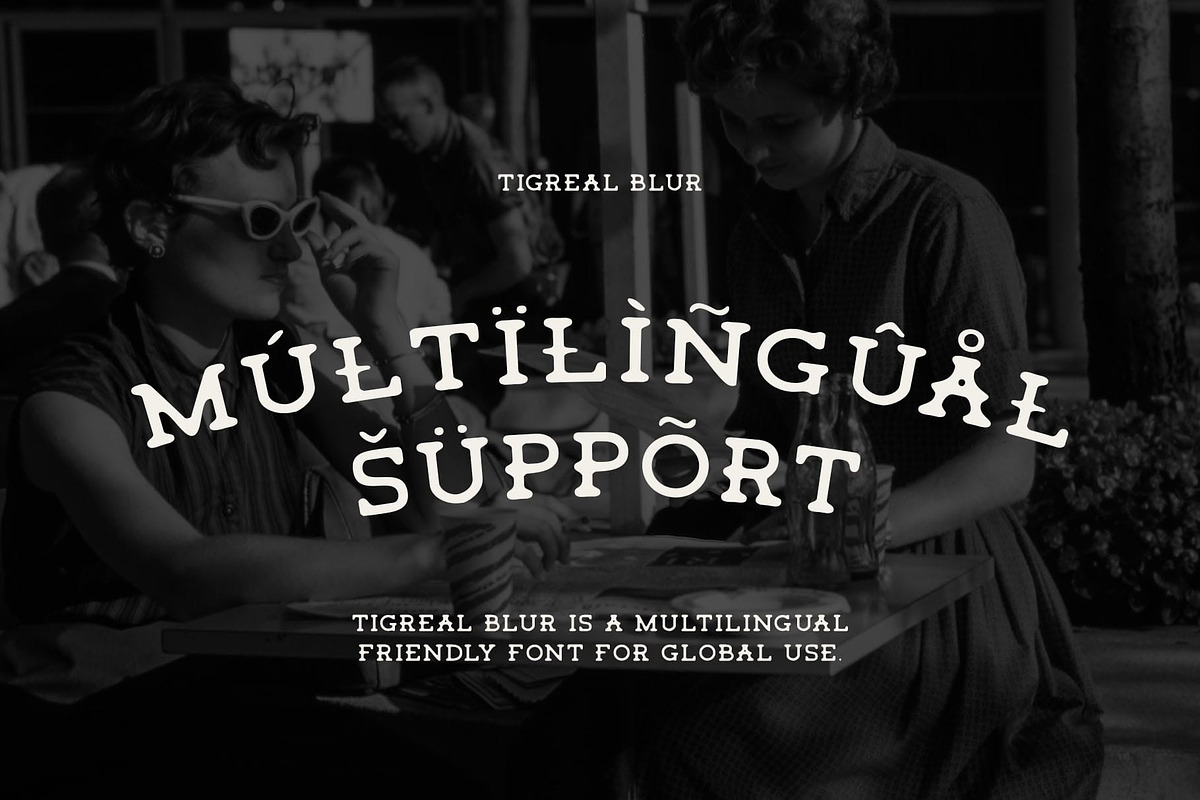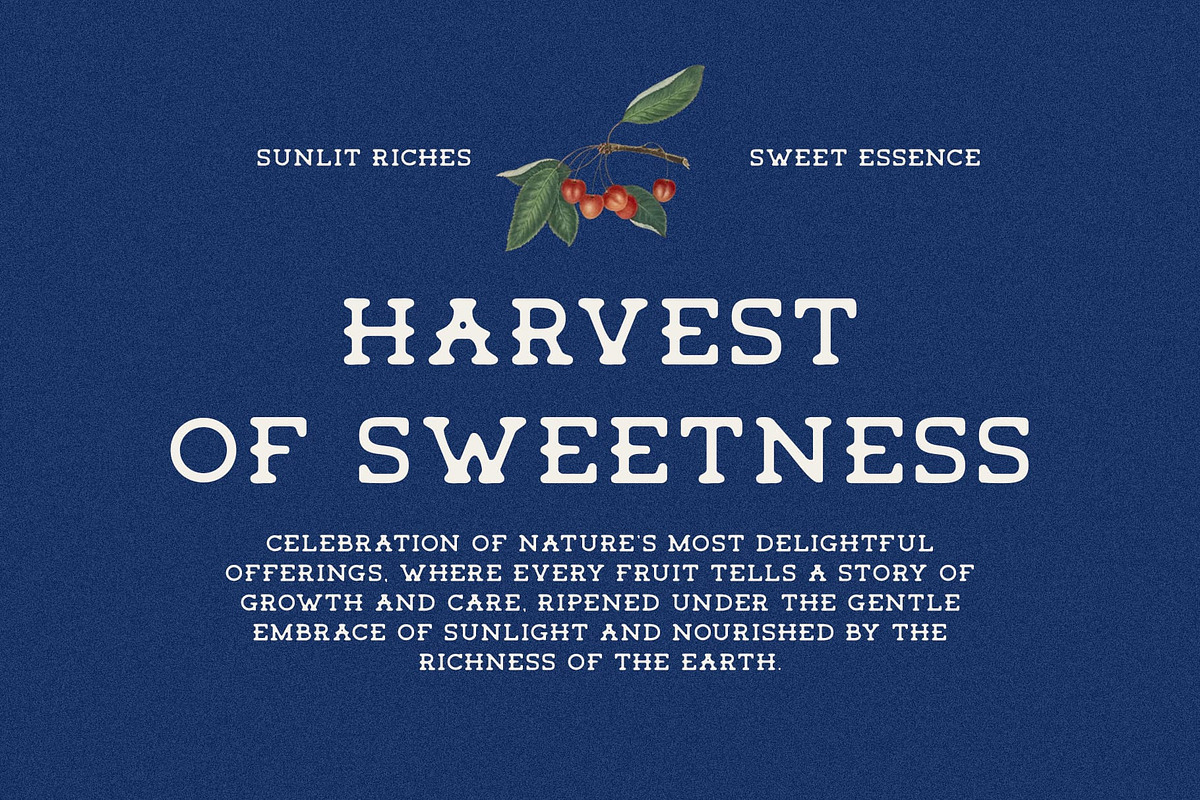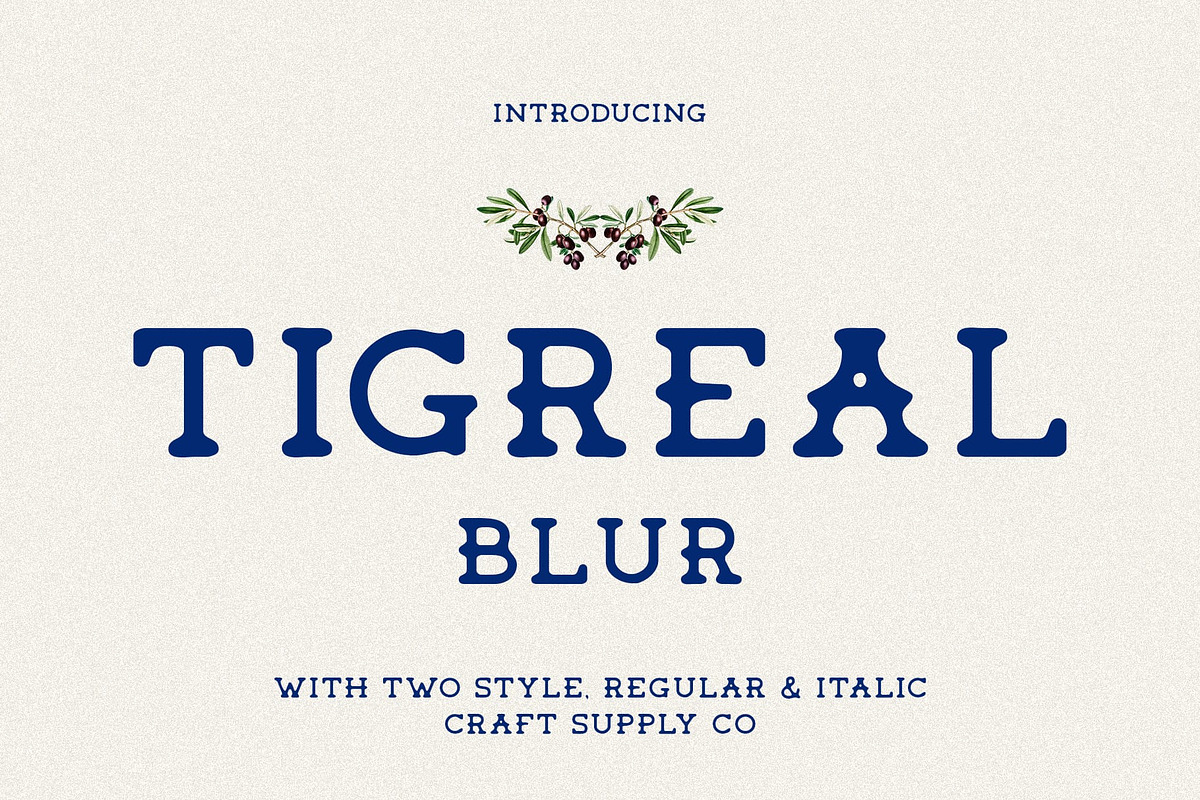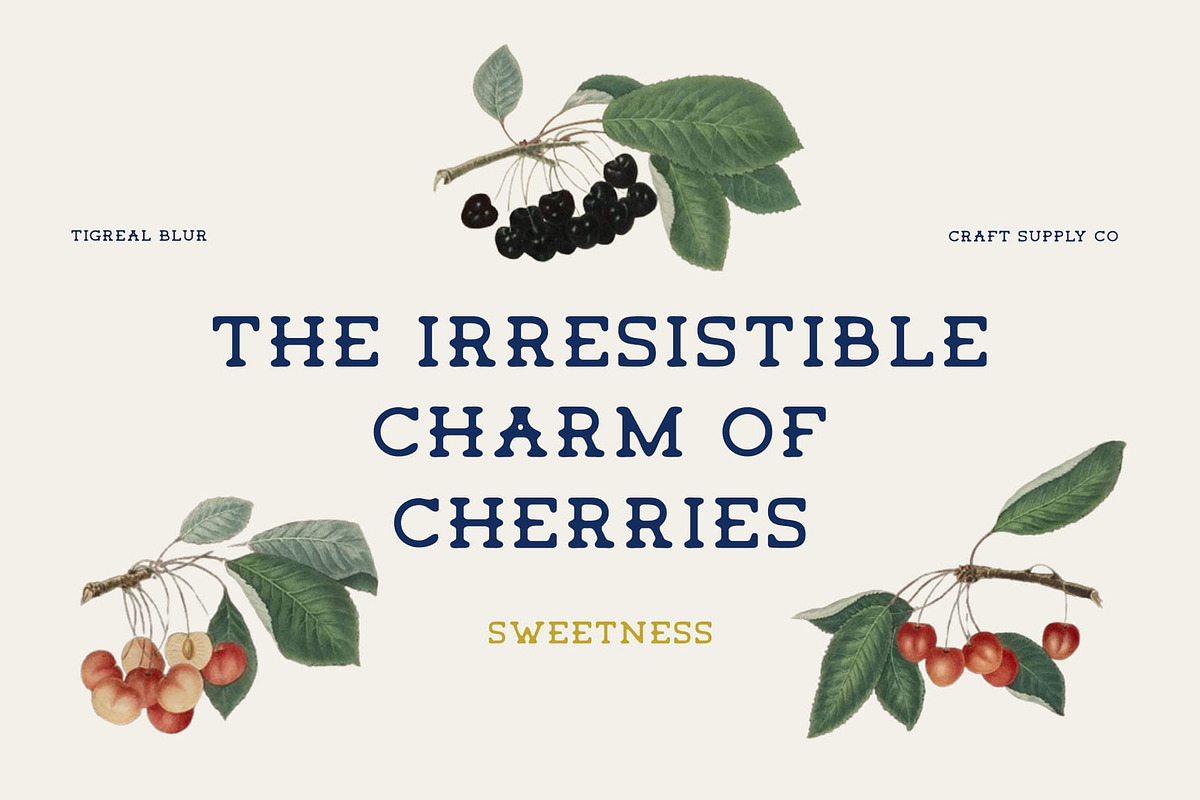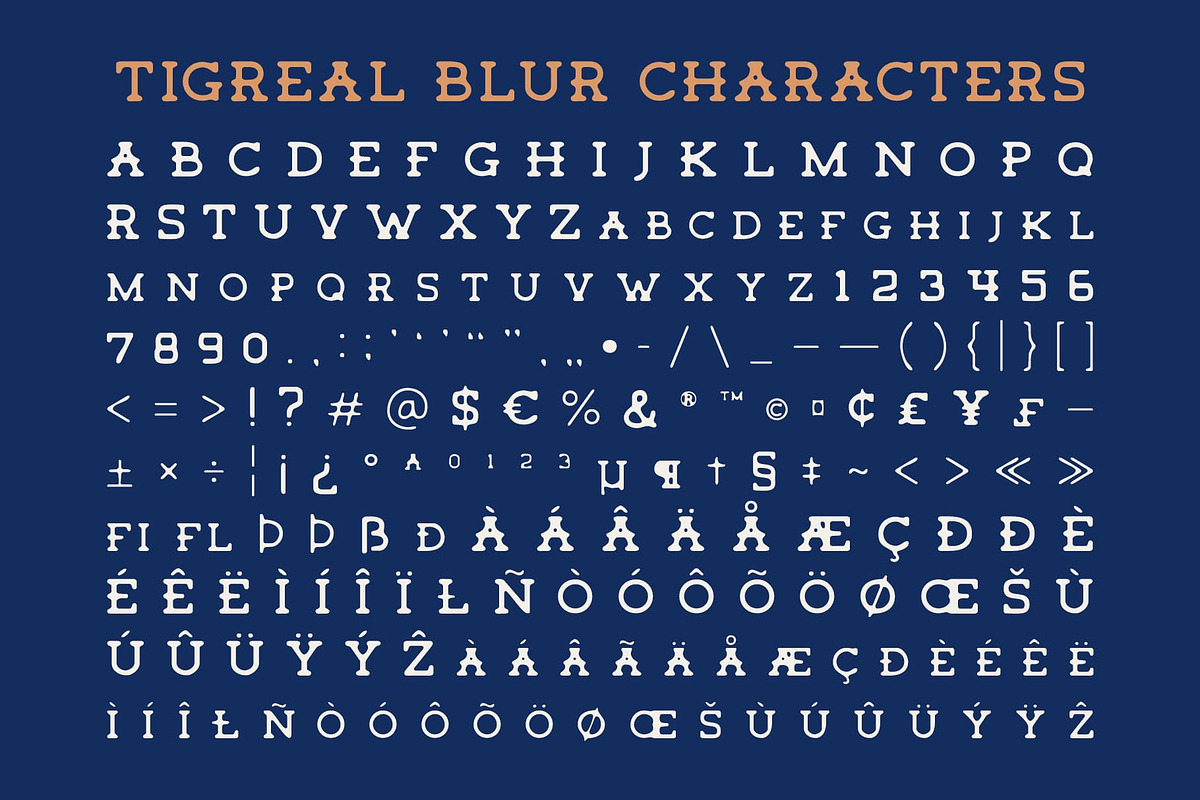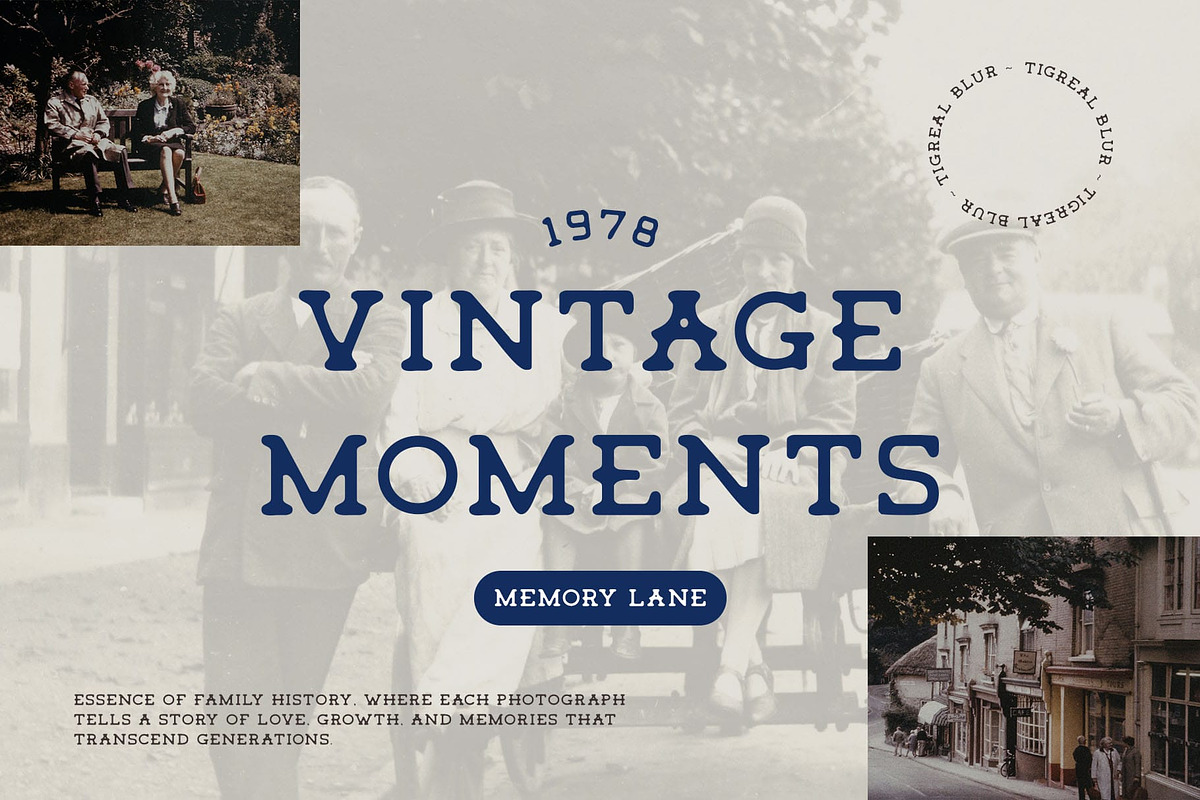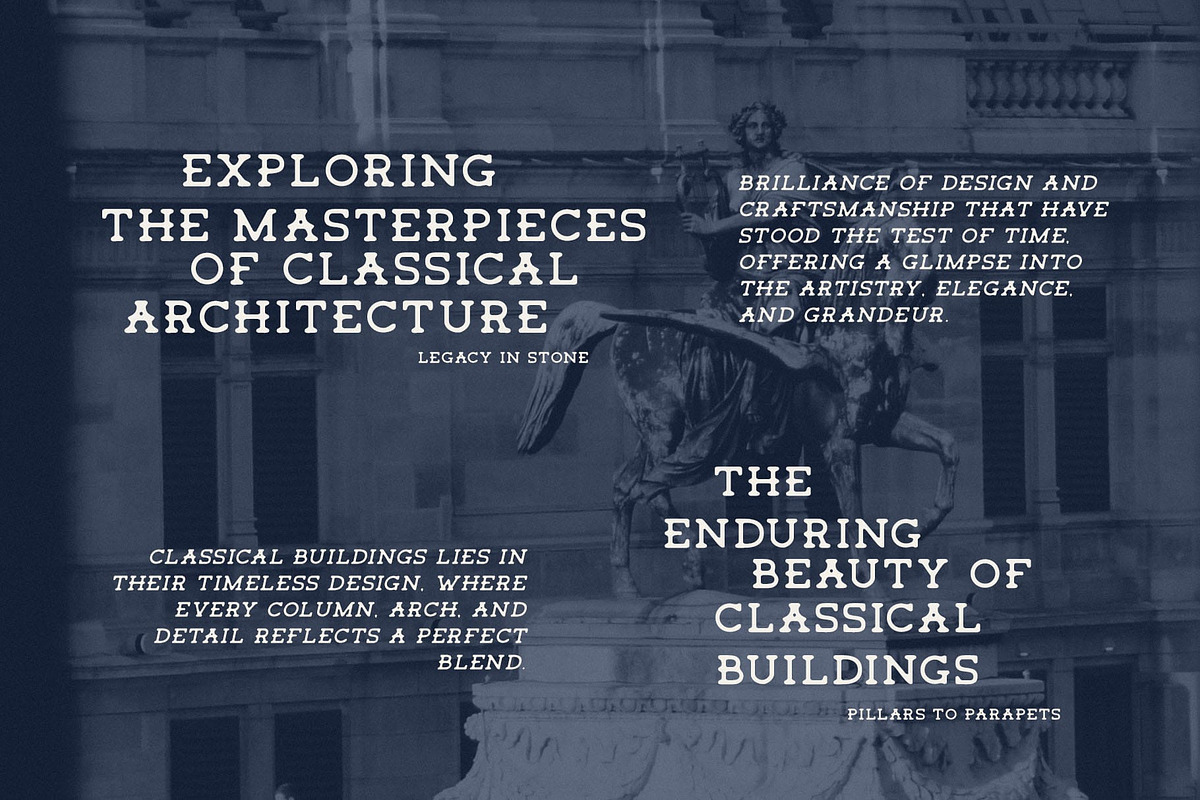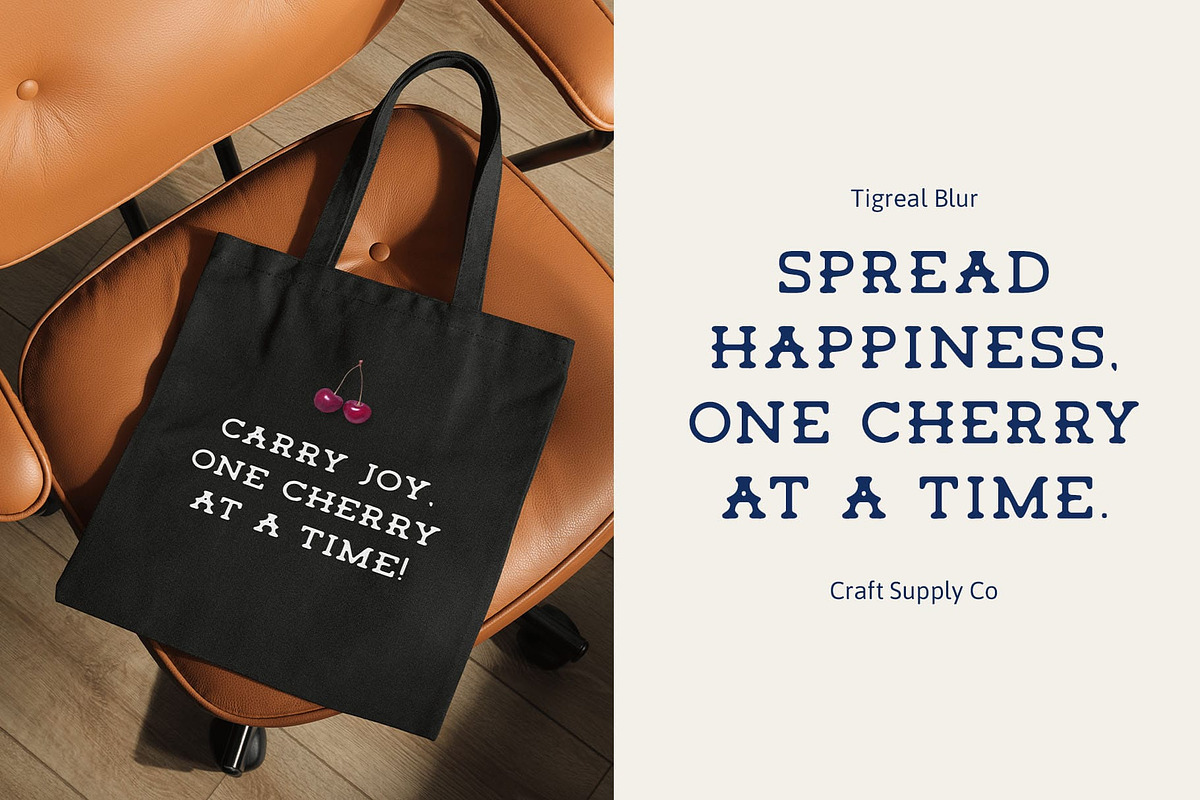
Tigreal Blur
Tigreal Blur Font: Classic Serif with Retro Charm and a Dynamic Twist
Vintage-Inspired Serif Font with a Blur Effect Tigreal Blur is a classic serif font featuring slab serifs and a retro vibe, enriched with a unique blur effect. The robust slab serifs lend a solid, authoritative presence, while the blur effect introduces a soft, dynamic quality that contrasts beautifully with the boldness of the serifs. This fusion of traditional design with modern flair makes Tigreal Blur a striking choice for projects that seek a nostalgic yet contemporary aesthetic.
Blending Tradition with Modern Motion The slab serifs offer a strong, sturdy structure reminiscent of classic serif typography, while the blur effect adds an intriguing sense of movement and modernity. This combination creates a visually engaging font with a timeless appeal, making it perfect for designs that aim to evoke both nostalgia and innovation.
Ideal for Retro Branding and Creative Projects Tigreal Blur is well-suited for retro branding, posters, and creative projects where a bold and memorable style is needed. Its unique blend of traditional and modern elements ensures it stands out, while the blur effect softens the overall look, providing a balance of energy and sophistication. Whether for vintage-themed advertisements, product packaging, or event promotions, this font creates a distinctive and engaging visual impression.